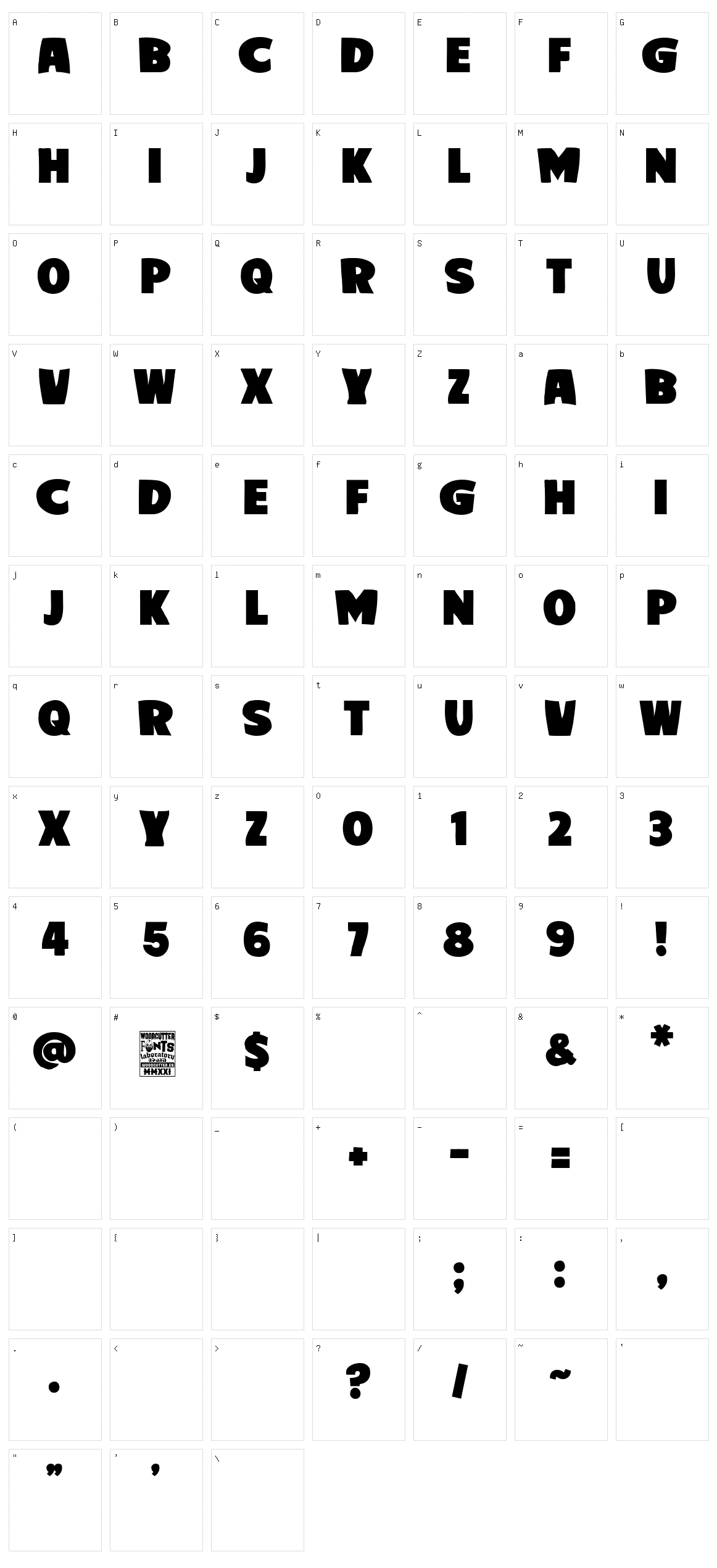
The free font Brutus Academy is carefully designed by Woodcutter, showcasing a thoughtful balance of creativity and usability and falls under the Cartoon font style. When you download the ZIP file, it contains only 40.41 KB of font files, making it lightweight and quick to download. Please review the license details below to understand permitted usage and distribution rights. If license information is not available, we recommend using this font for personal projects only or contacting the author directly for commercial usage permissions.